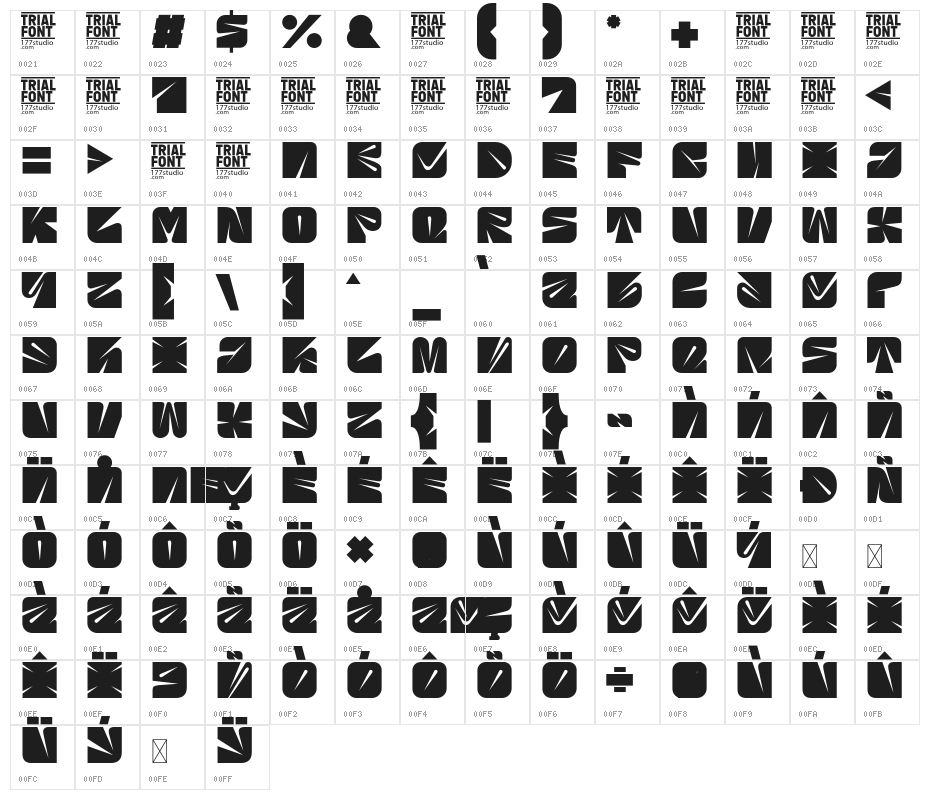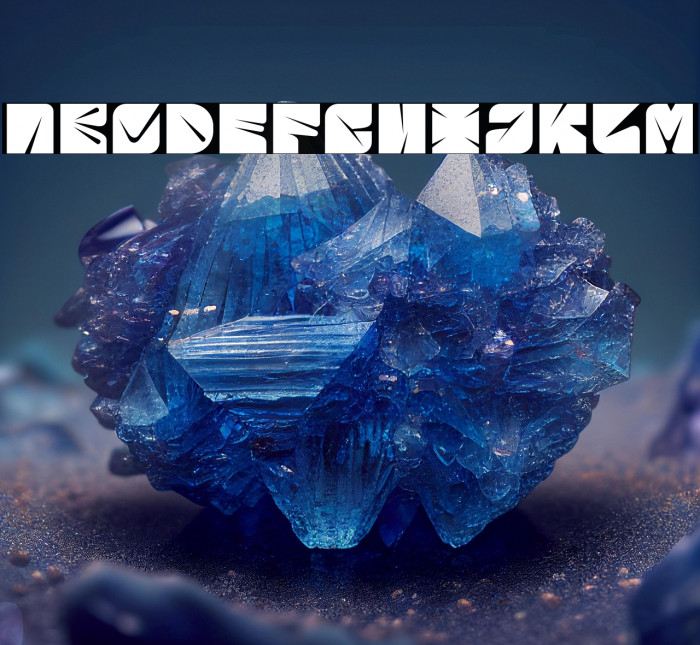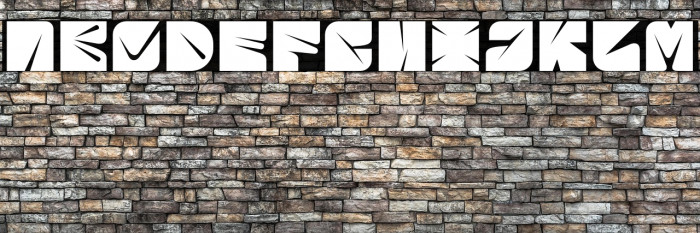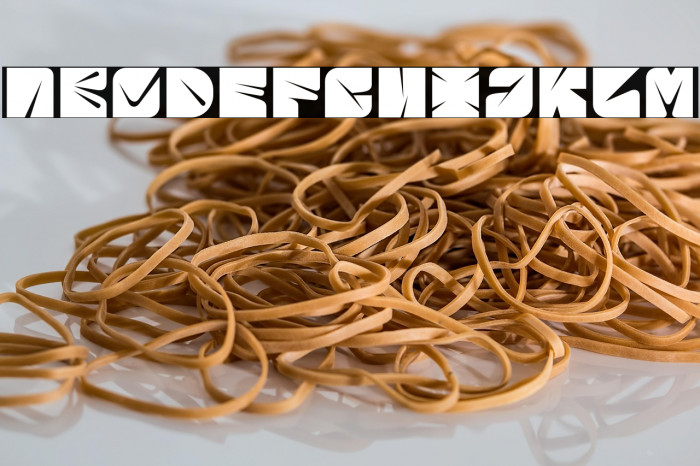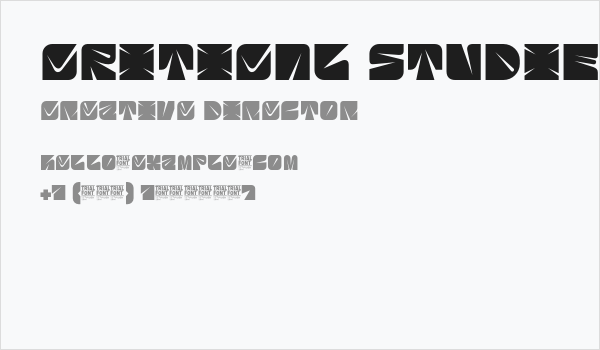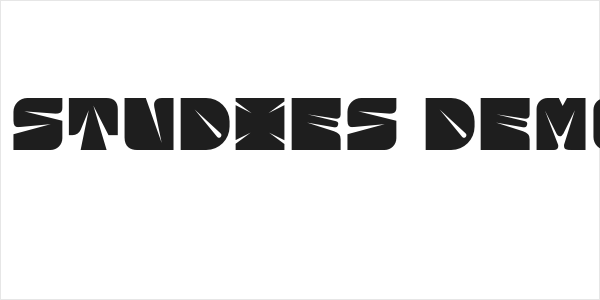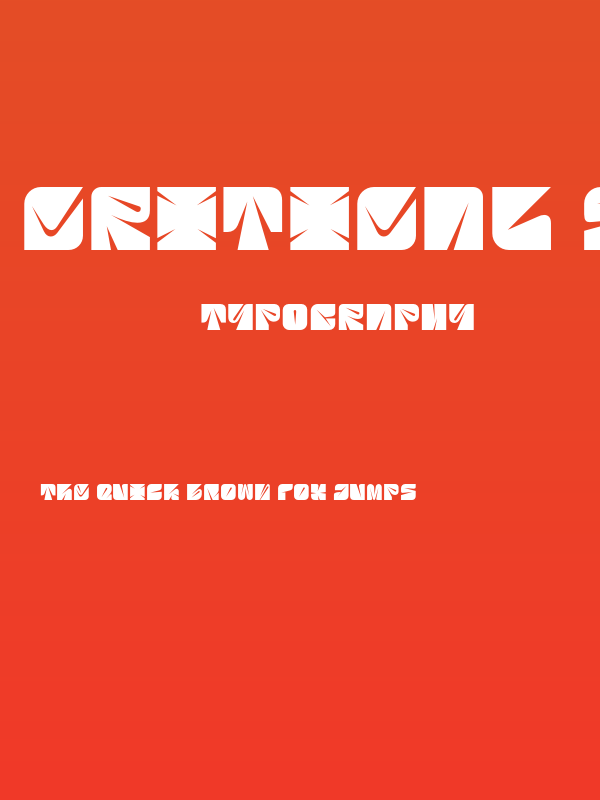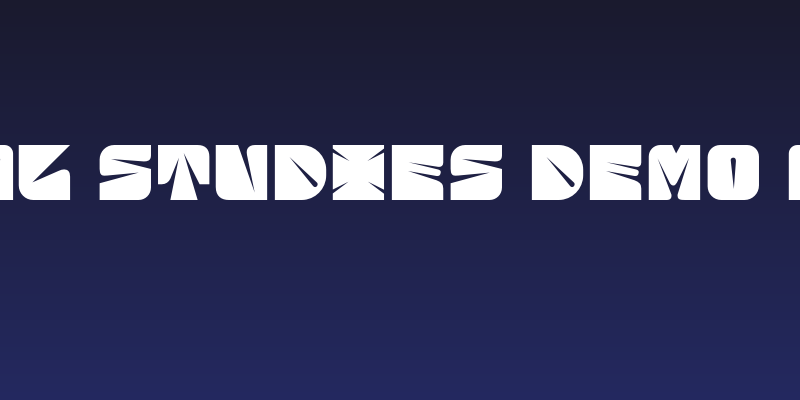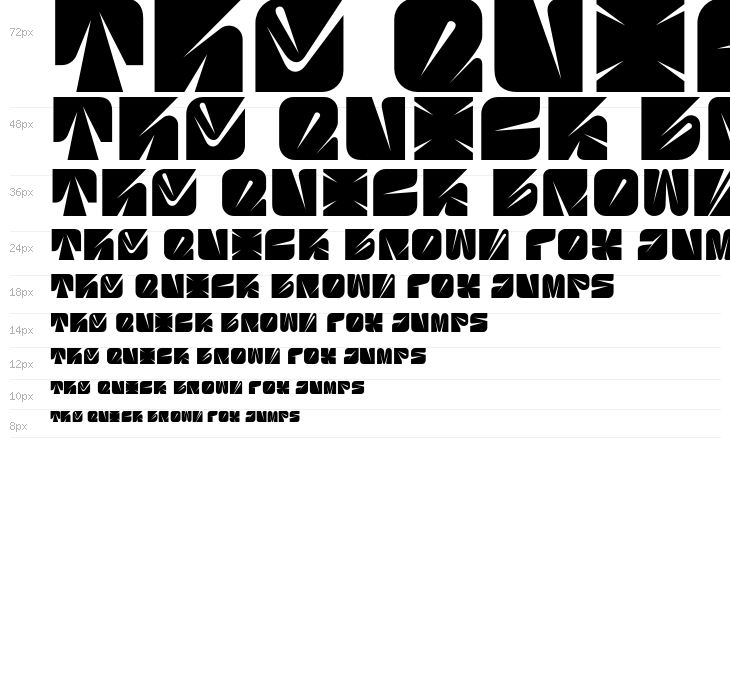
CRITICAL STUDIES DEMO Regular Font
CRITICAL STUDIES DEMO Regular Description
This font exhibits a bold and geometric style with a strong emphasis on angular shapes and sharp edges. Each character is crafted with a unique combination of solid blocks and negative space, creating a striking visual impact. The uppercase and lowercase letters maintain a consistent aesthetic, while the numbers and special characters follow the same design principles. The font's distinct appearance makes it ideal for projects that require a modern and edgy look. Its boldness ensures high visibility, making it suitable for attention-grabbing headlines or logos.
| Proposed Projects | Ideal for modern branding, edgy posters, album covers, and attention-grabbing headlines. |